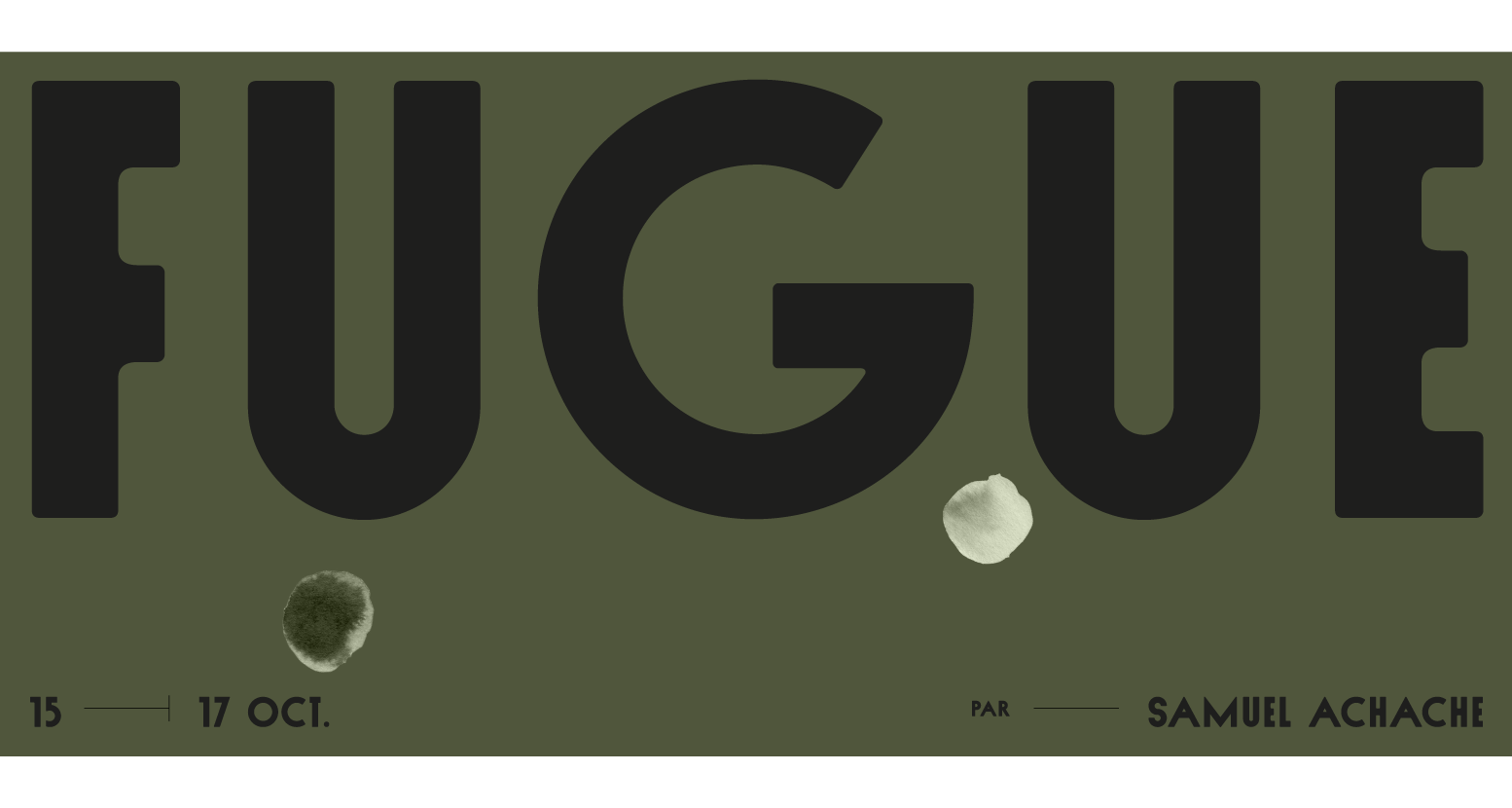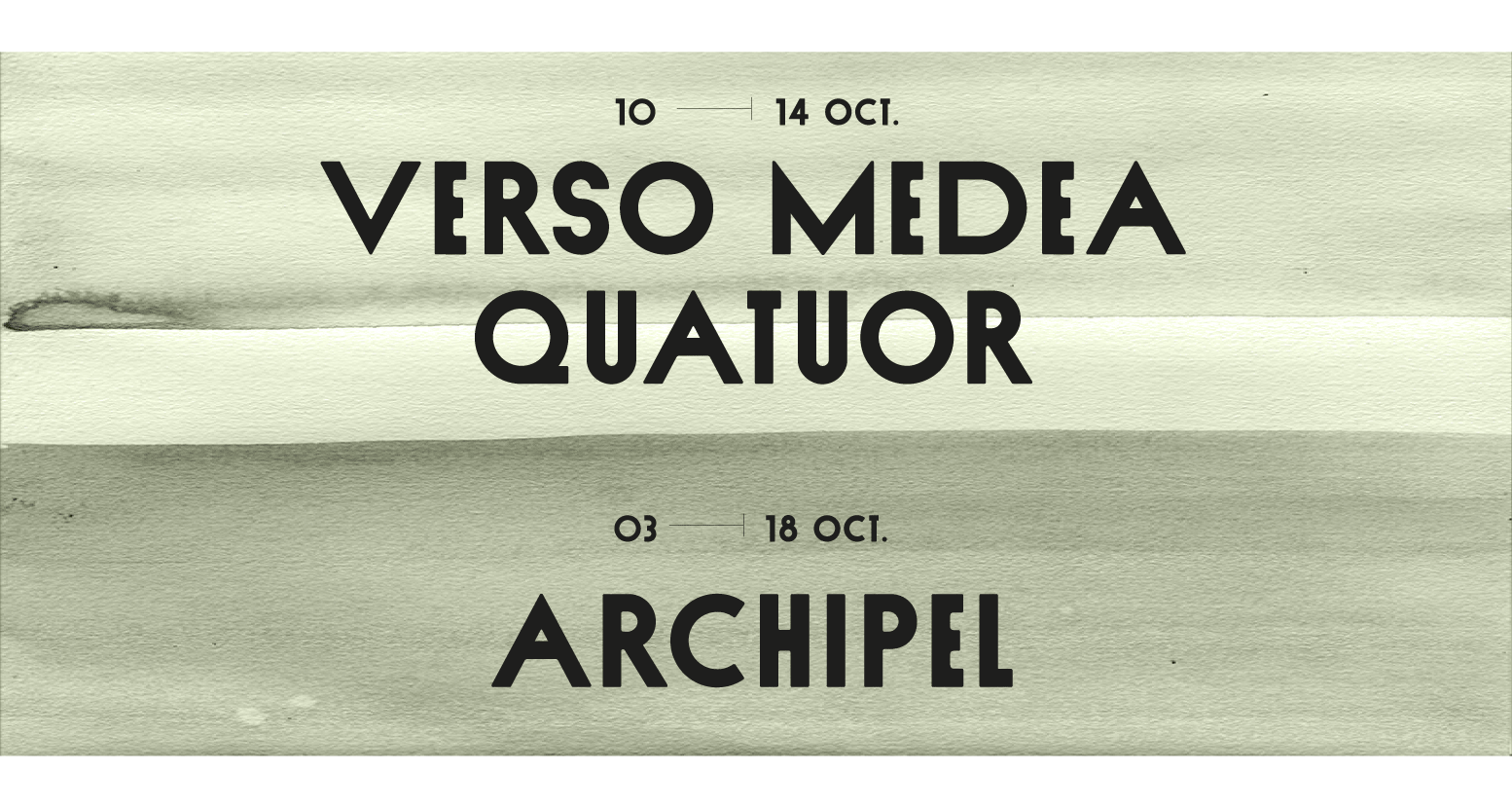
Nord
• Display - 1 weight
• Designer
Jérémy Schneider
Nord, originally designed for the 2015-2016 identity of the « Théâtre des Bouffes du Nord » in Paris, is a bold font punctuated by the irregular widths of its letters. Nord’s softness and quite delicate style originates from its rounded angles. It was conceived together with Sud, a thinner sister version, both intending to harmoniously co-exist in the graphic identity of the theater.